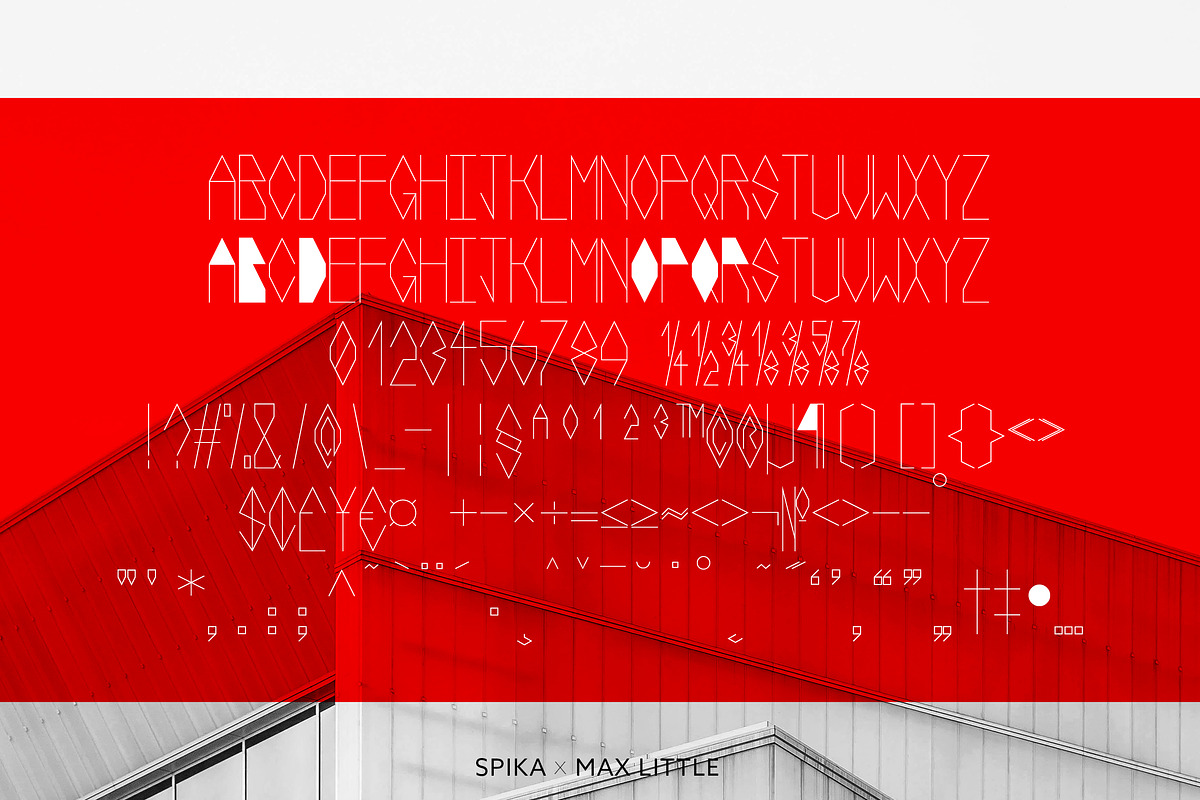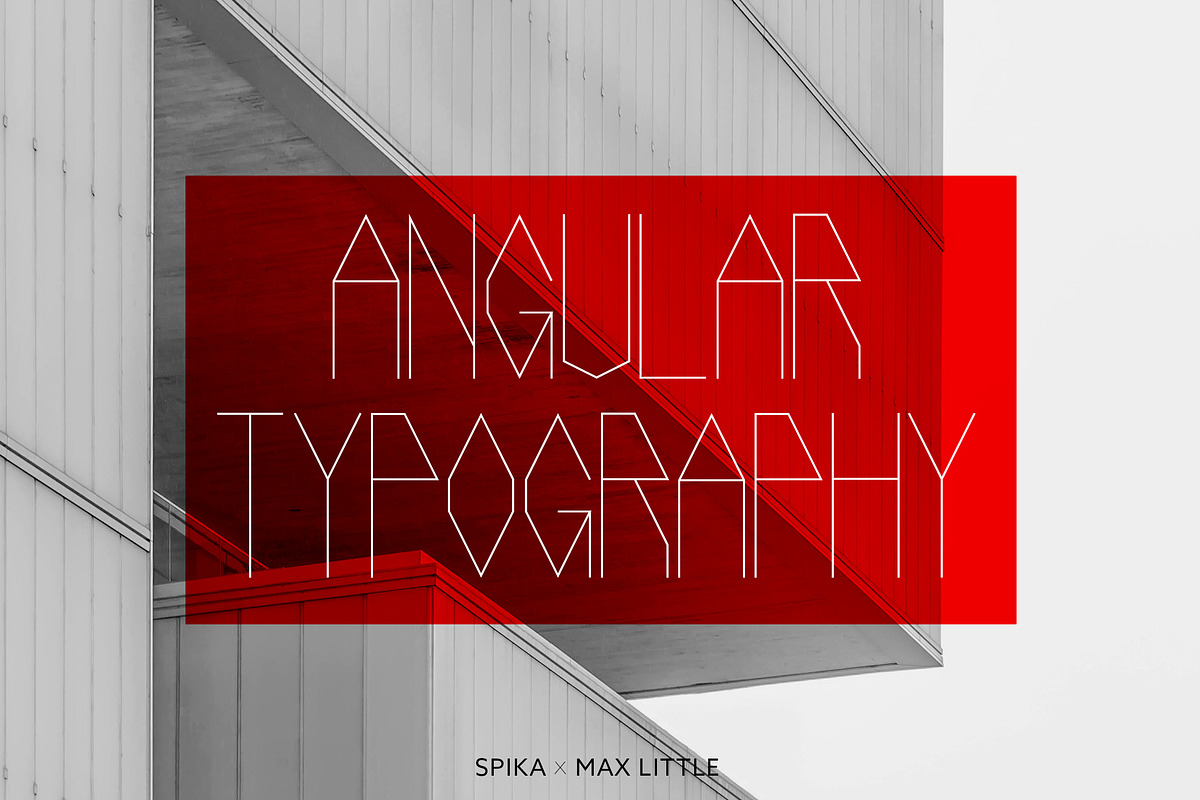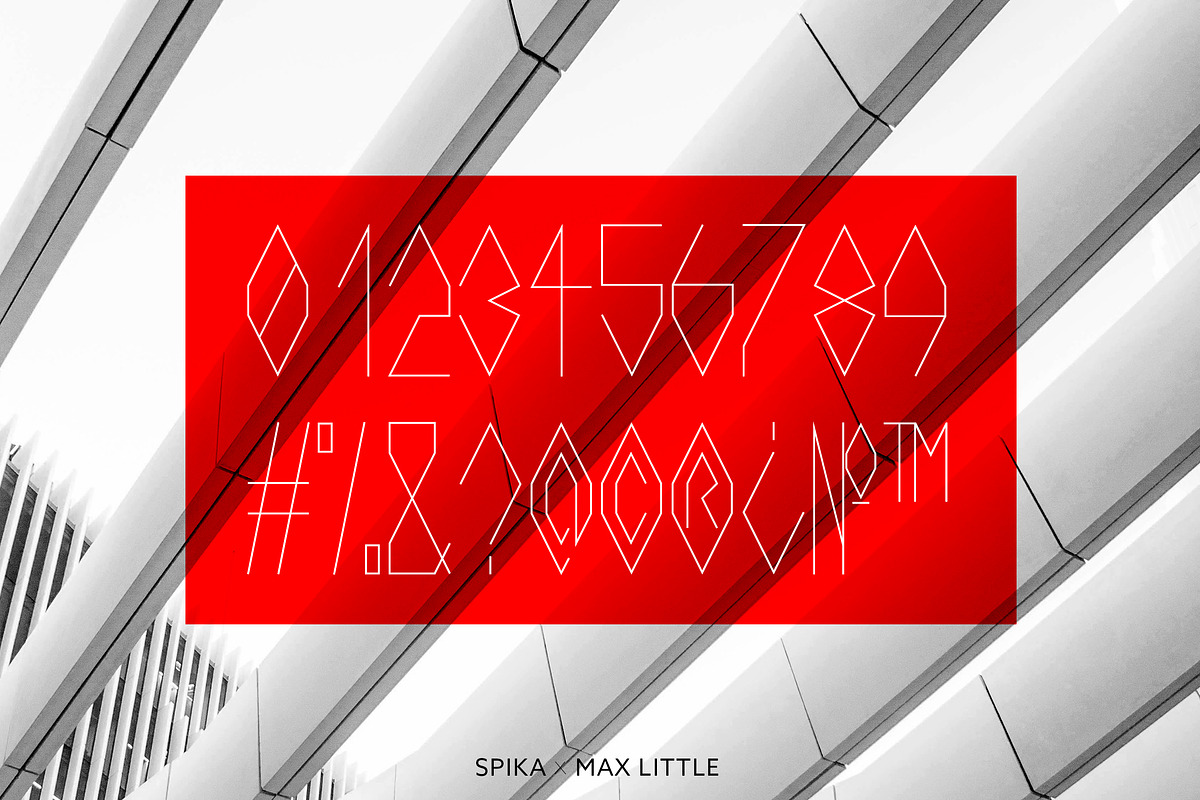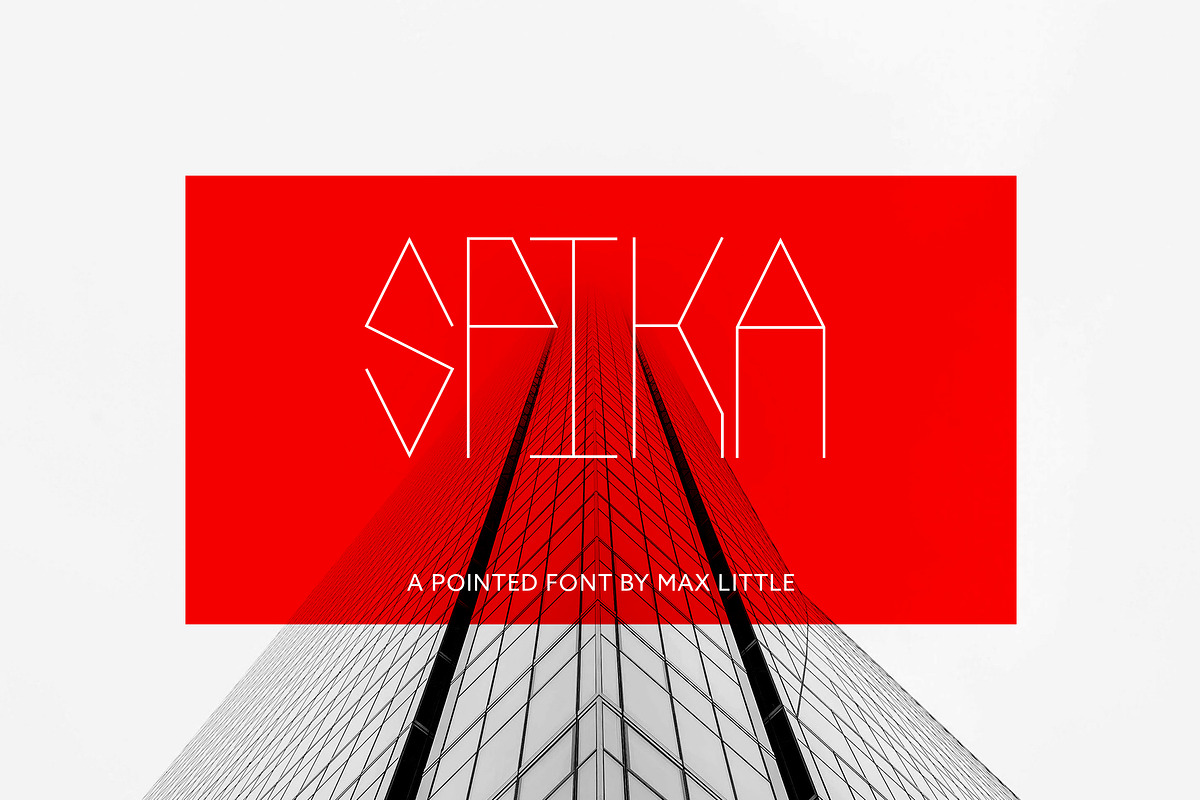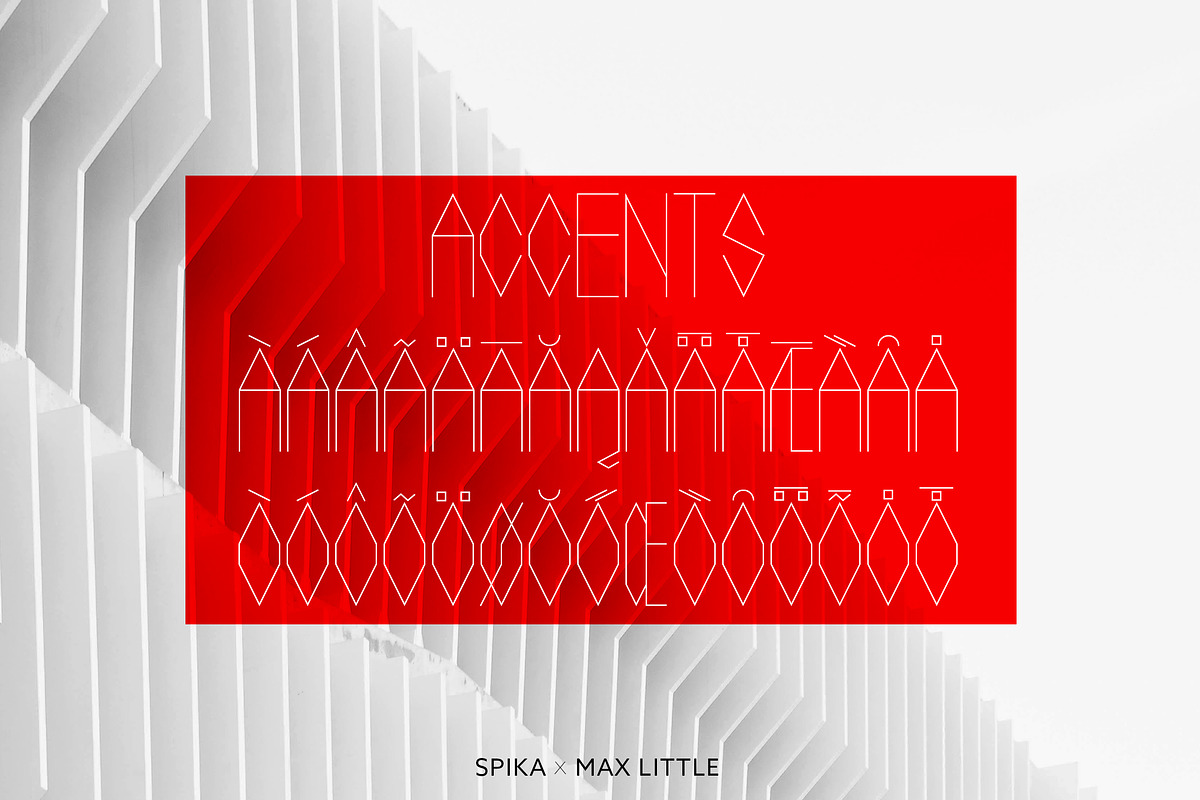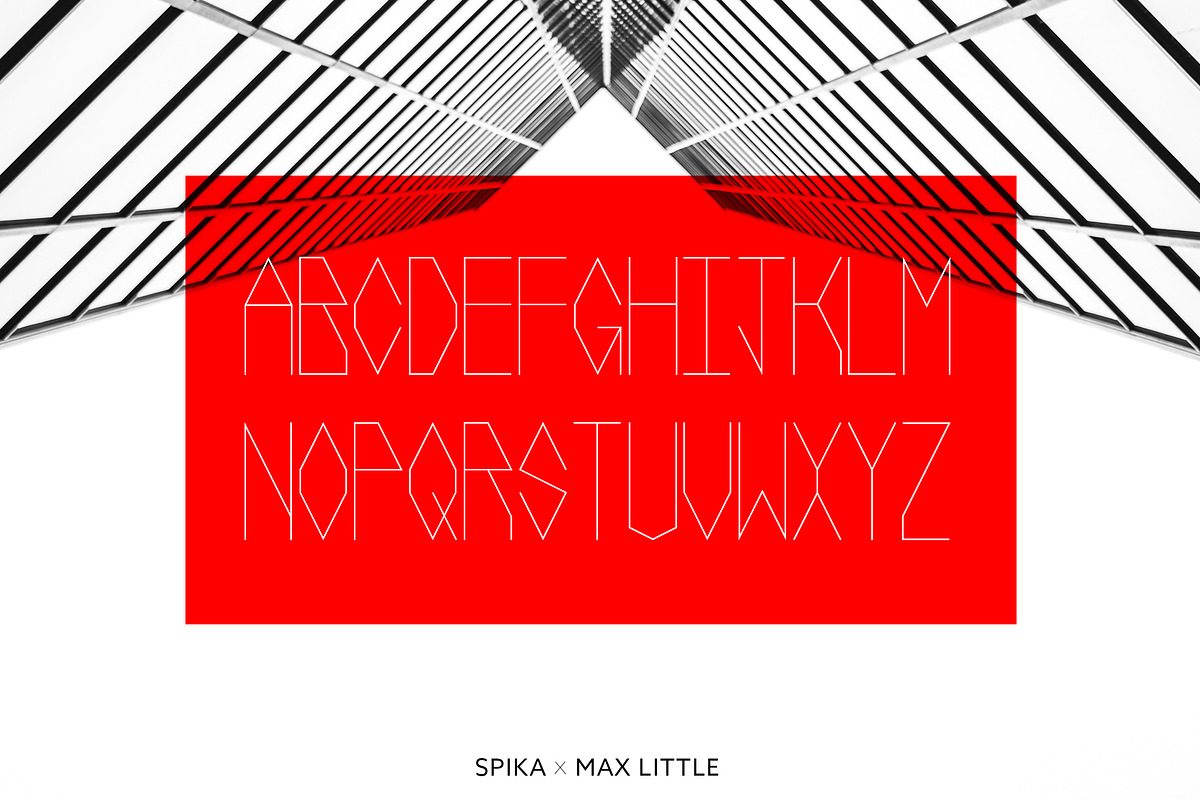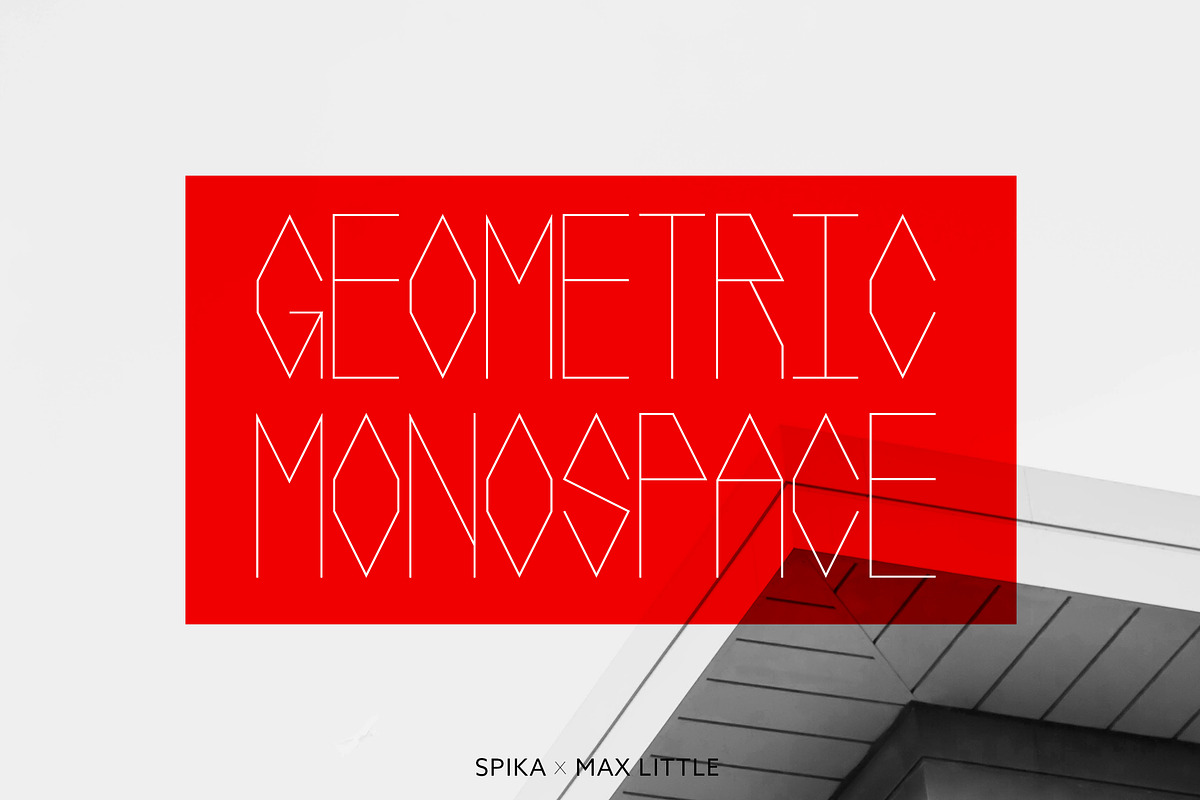
SPIKA
SPIKA by Little Fonts is a font selected for branding, posters, packaging, typography.
- Spika is best suited as a headline typeface and contains an extended glyph set for supporting many languages.
Why SPIKA is worth a look
SPIKA by Little Fonts fits naturally into Branding, posters, packaging, typography.